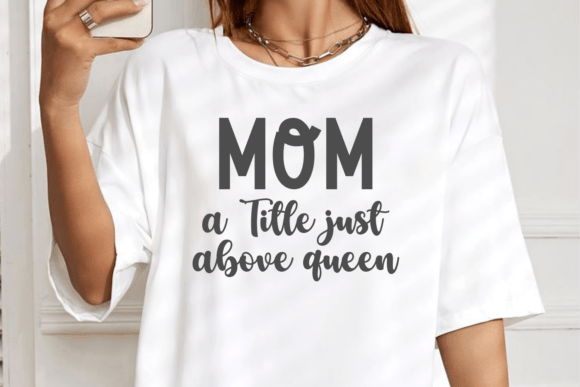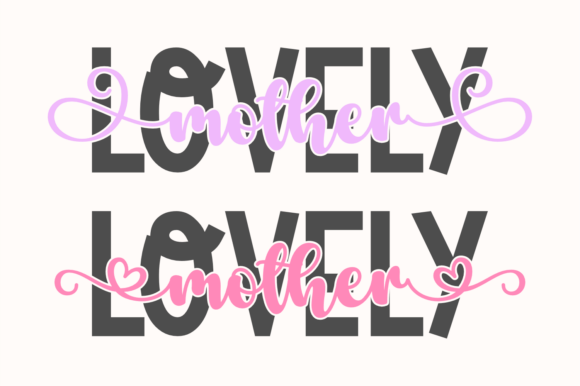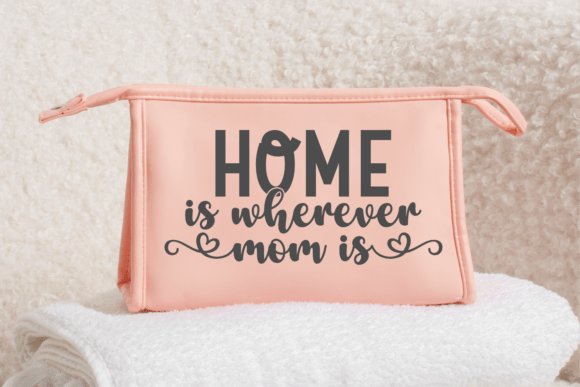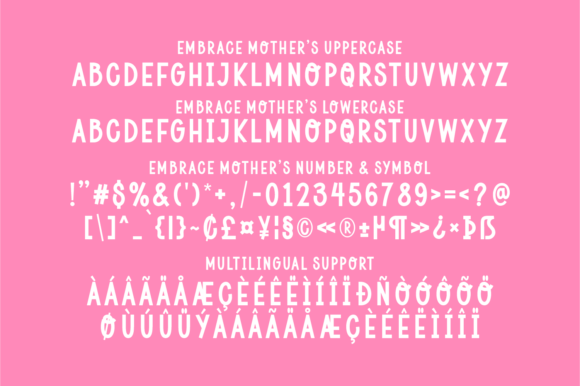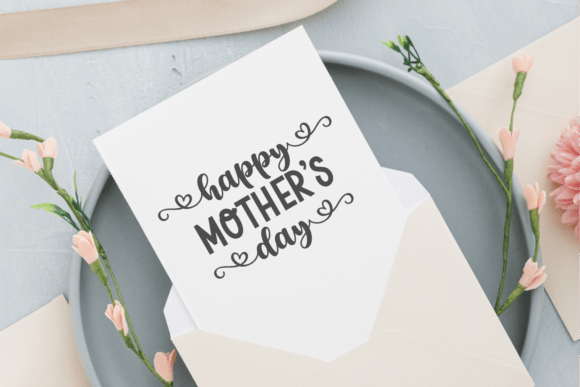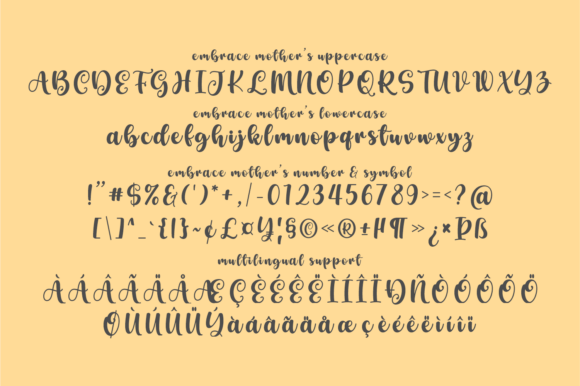
Embrace Mother’s Font: Unlock the Heart of Mother’s Day Designs
As Mother’s Day approaches, designers and crafters are on the lookout for the perfect typography to convey love, appreciation, and warmth. Introducing Embrace Mother’s Font, a delightful duo that combines a bold, fun sans serif with a delicate script, featuring a heart-shaped tail. This enchanting font pairing is sure to elevate your designs, making them not just harmonious, but irresistibly heartwarming.
The Perfect Pairing
Embrace Mother’s Font consists of two complementary fonts that work in perfect harmony. The sans serif font is bold, fun, and radiates joy, making it ideal for headlines, titles, and emphasis. Its clean lines and modern aesthetic ensure that your designs feel fresh and contemporary. Paired with this is a delicate script font, boasting a charming heart-shaped tail that adds a touch of whimsy and romance. This elegant font is perfect for body text, quotes, and captions, bringing a sense of sophistication and warmth to your designs.
With Embrace Mother’s Font, the design possibilities are endless. Use this font duo to:
- Elevate your wedding stationery: Create beautiful wedding invitations, save-the-date cards, and ceremony programs that set the tone for a romantic and unforgettable celebration.
- Craft unforgettable invitations: Design eye-catching invitations for Mother’s Day, birthdays, baby showers, and other special occasions that will leave a lasting impression.
- Infuse love into every design: Add a touch of warmth and personality to your designs, making them perfect for social media graphics, blog posts, and marketing materials.
- Build feminine brands: Create a modern yet timeless appeal for your brand with a feminine touch, ideal for businesses catering to women, mothers, and families.
Why Choose Embrace Mother’s Font?
So, what makes Embrace Mother’s Font the perfect choice for your designs?
- Unique and eye-catching: Stand out from the crowd with a font duo that is both distinctive and captivating.
- Versatile: Use Embrace Mother’s Font for a wide range of design projects, from digital to print.
- Easy to read: The sans serif font is clear and legible, even at small sizes, making it perfect for body text and captions.
- Emotional connection: The heart-shaped tail of the script font creates an emotional connection with your audience, making your designs more relatable and engaging.
Make this Mother’s Day Unforgettable
This Mother’s Day, make your designs unforgettable with Embrace Mother’s Font. Whether you’re a designer, crafter, or DIY enthusiast, this enchanting font duo will help you create visuals that are not just beautiful but also heartwarming. So, why wait? Unlock the heart of Mother’s Day designs with Embrace Mother’s Font and make this special day truly unforgettable – one beautiful letter at a time.
To get the most out of Embrace Mother’s Font, here are some tips and inspiration to get you started:
- Experiment with font combinations: Try pairing Embrace Mother’s Font with other fonts to create unique and interesting visual effects.
- Play with colors: Use a range of colors to add depth and personality to your designs, from soft pastels to bold brights.
- Add illustrations and graphics: Incorporate illustrations, icons, and graphics to enhance your designs and make them more engaging.
- Keep it simple: Don’t be afraid to keep your designs simple and elegant, letting the beauty of Embrace Mother’s Font shine through.
With Embrace Mother’s Font, you’ll be well on your way to creating stunning designs that capture the heart and spirit of Mother’s Day. So, go ahead, get creative, and make this special day truly unforgettable!